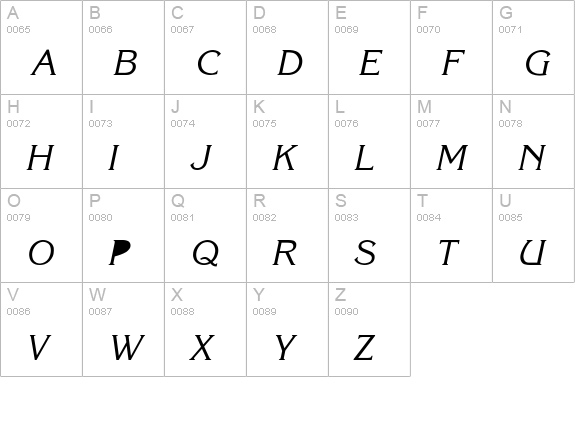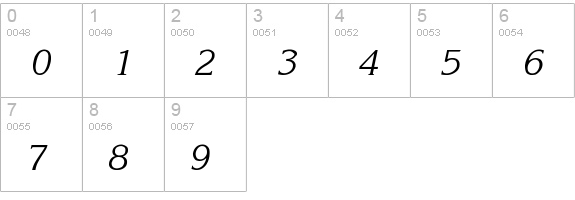
Korina-SemiBold-Ita is a sub-bold, structured variant in the Korina typeface family \xE2\x80\x94 well suited to sub-headlines and emphasised passages.
The Korina SemiBold Italic font exudes a perfect blend of sophistication and modernity, making it the ideal choice for projects that demand a touch of elegance. Its sleek lines and subtle slant create a dynamic and eye-catching appearance, perfect for both headers and body text. The semi-bold weight adds a sense of authority and strength to any design, while the italic styling adds a touch of flair and personality. Best of all, the Korina SemiBold Italic font is available for free download at FontsMarket.com. This means that you can add this versatile and stylish typeface to your font library without any cost, making it a valuable asset for all your design projects. Whether you're creating branding materials, advertising campaigns, or website designs, the Korina SemiBold Italic font is sure to elevate your work to the next level.